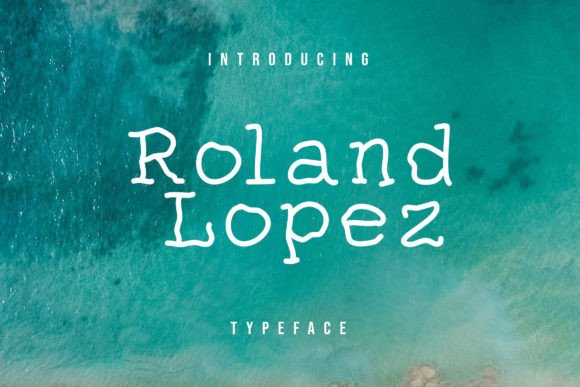
Introducing Roland Lopez, the display font that will add a touch of whimsy to your designs. With its uniquely shaped characters, Roland Lopez is perfect for creating eye-catching headlines, logos, and social media graphics.
Whether you're a designer looking to create something truly unique or a business owner looking to make your brand stand out, Roland Lopez is the perfect font for you. Its playful personality will add a touch of fun to any project, and its versatility makes it perfect for a wide range of uses.
Here are just a few of the many reasons why you'll love Roland Lopez:
* Its unique characters will help you create designs that are sure to stand out from the crowd.
* It's perfect for a wide range of uses, from headlines to logos to social media graphics.
* Its playful personality will add a touch of fun to any project.
* And its versatility makes it perfect for designers of all levels.